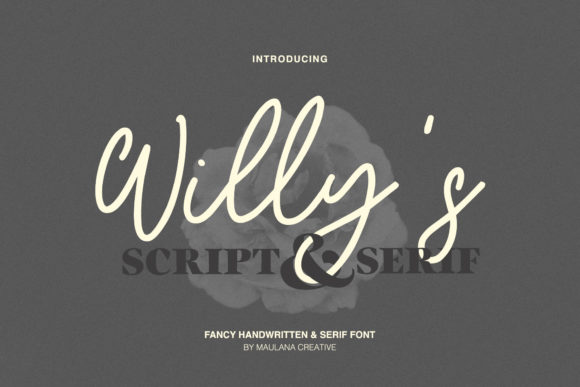
Step into a world of authentic charm with Willy's Font, the script duo that weaves a spell of handmade artistry into your designs. This enchanting font family, crafted by the visionary Maulana Creative, unlocks a treasure trove of emotions, transforming your words into captivating expressions of heartfelt sincerity.
Unleash the magic of Willy's Font and let your designs resonate with the warmth of human touch. Its exquisite swirls and elegant curves evoke a sense of nostalgia, while its effortless flow adds a touch of whimsy and playfulness. Immerse yourself in the beauty of perfectly paired script and serif fonts, designed to dance together in perfect design harmony.
With Willy's Font, your designs will transcend the ordinary and take on a life of their own. Whether you're creating heartfelt invitations, capturing the essence of vintage elegance, or adding a touch of whimsy to your branding, Willy's Font will captivate your audience and leave a lasting impression.
Embrace the artistry of Willy's Font and unlock a world of creative possibilities. Let your designs bloom with authenticity, charm, and a touch of magic. Experience the beauty of handcrafted elegance and let Willy's Font transform your ordinary designs into extraordinary expressions of the heart.